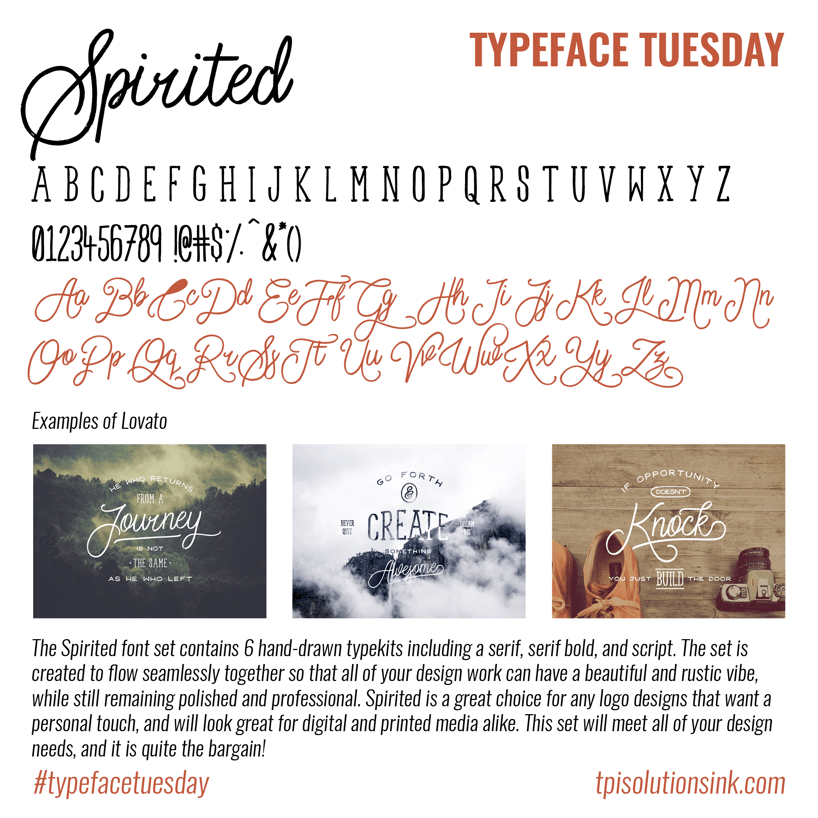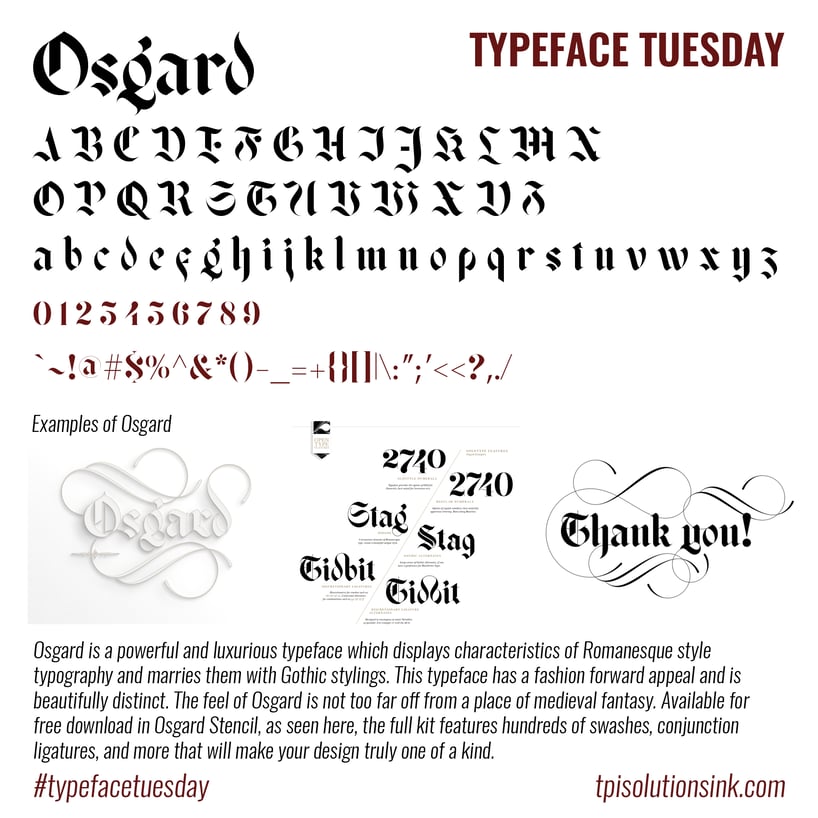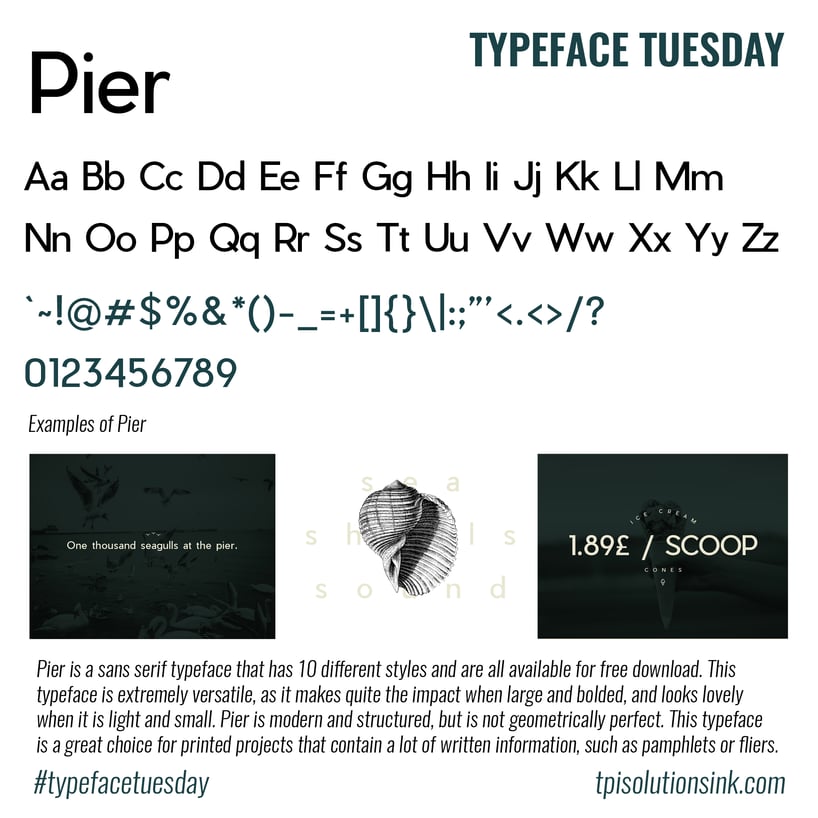
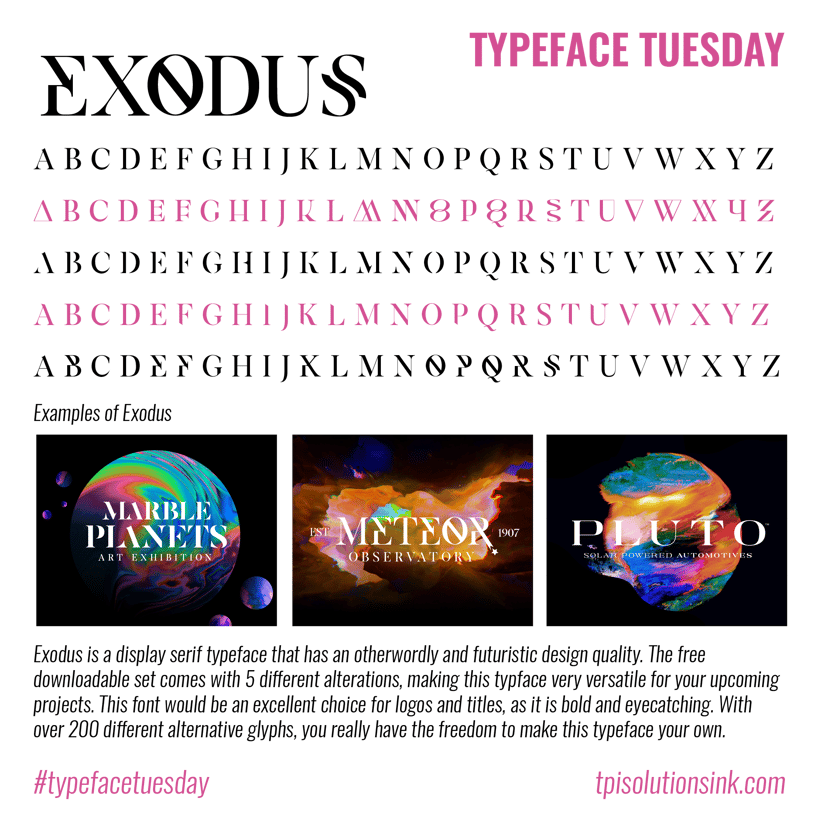
Discover the bold Exodus here!
Get the delicate and rustic Spirited here!
Check out the bold and unique Osgard here!•••
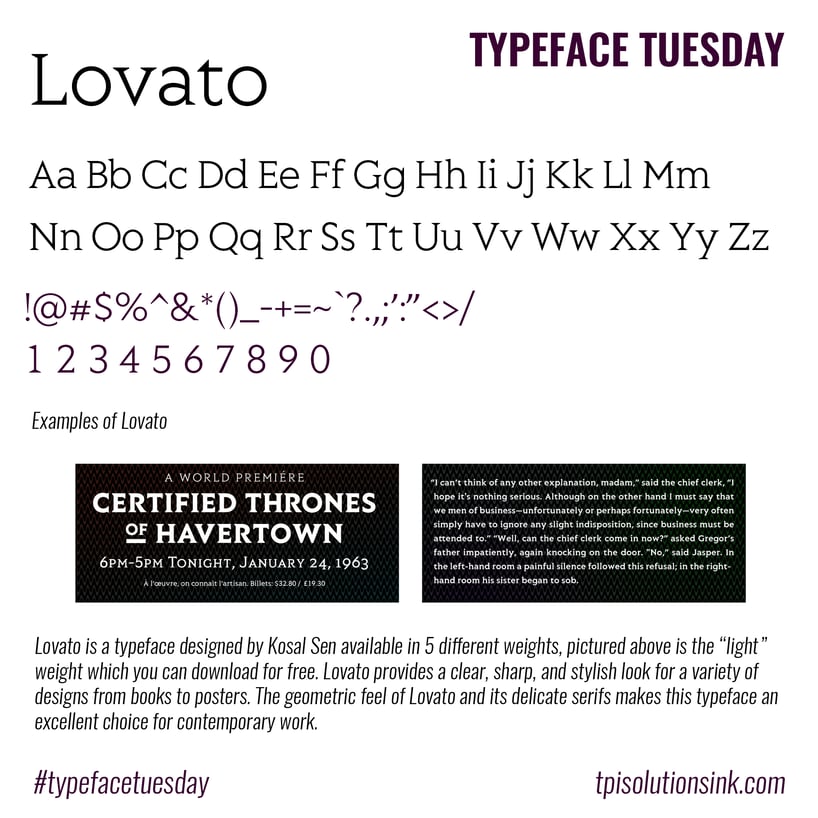
You can find the lovely Lovato here!
Get the versatile Pier here!